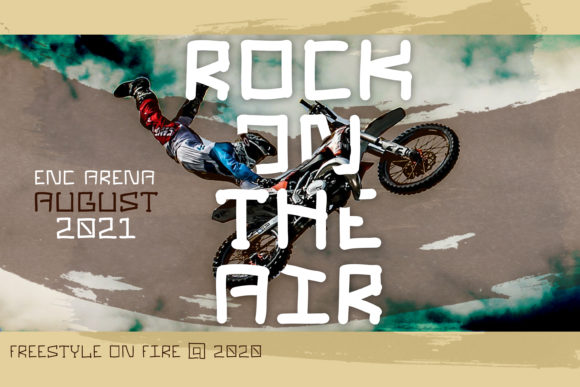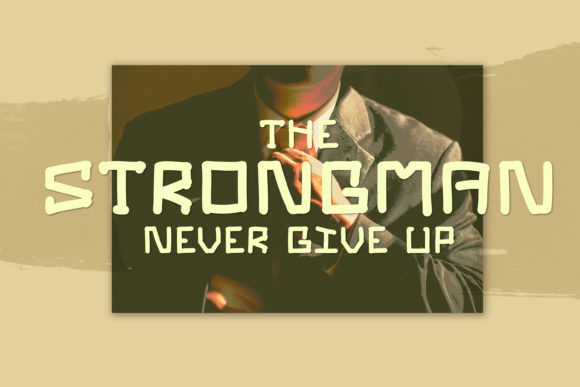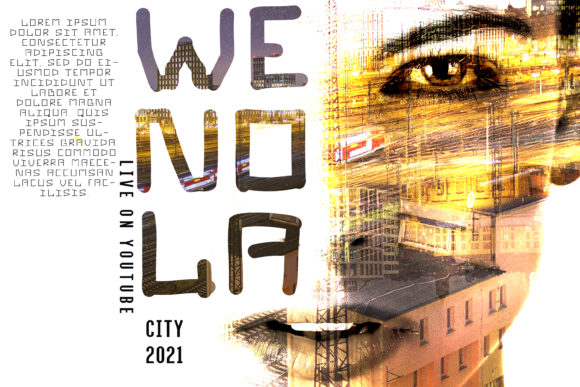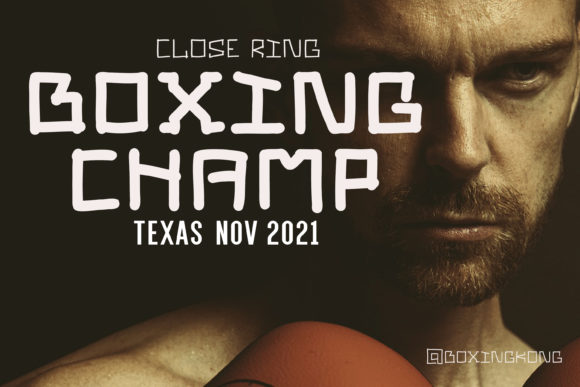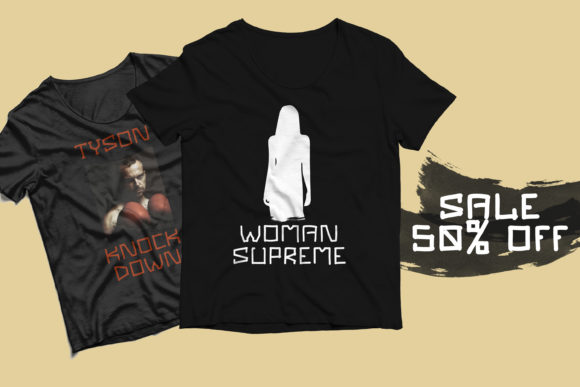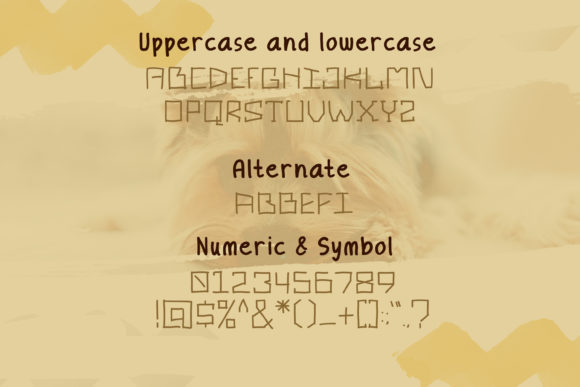
Make Your Designs Stand Out with Face Square Font
Are you tired of using the same old fonts in your designs? Do you want to add a creative touch to your posters, greeting cards, logos, and business cards? Look no further than Face Square Font, a stylish and unique display font that’s sure to make your designs stand out.
What is Face Square Font?
Face Square Font is a modern, sans-serif font that’s perfect for designers and crafters who want to add a touch of sophistication and elegance to their work. Its unique design features a square-shaped letterform that’s both stylish and eye-catching.
Key Features of Face Square Font
- Unique Design: Face Square Font features a one-of-a-kind design that’s sure to grab attention.
- Stylish and Elegant: The font’s modern, sans-serif design makes it perfect for a wide range of design projects.
- Versatile: Face Square Font can be used for a variety of design projects, including posters, greeting cards, logos, business cards, and more.
- Easy to Read: Despite its unique design, Face Square Font is easy to read, making it perfect for body text and headings.
Uses for Face Square Font
Face Square Font is perfect for a wide range of design projects, including:
- Posters: Add a creative touch to your posters with Face Square Font’s unique design.
- Greeting Cards: Make your greeting cards stand out with Face Square Font’s stylish and elegant design.
- Logos: Use Face Square Font to create a unique and memorable logo for your business.
- Business Cards: Add a touch of sophistication to your business cards with Face Square Font.
- Quotes: Make your quotes stand out with Face Square Font’s stylish and eye-catching design.
- Thank You Cards: Add a creative touch to your thank you cards with Face Square Font.
Why Choose Face Square Font?
There are many reasons why Face Square Font is the perfect choice for your design projects. Here are just a few:
- Unique Design: Face Square Font features a one-of-a-kind design that’s sure to grab attention.
- High-Quality: Face Square Font is a high-quality font that’s designed to look great in any design project.
Tips for Using Face Square Font
Here are a few tips for using Face Square Font in your design projects:
- Use it as a Headline Font: Face Square Font is perfect for use as a headline font, where its unique design can really shine.
- Pair it with Other Fonts: Face Square Font pairs well with a variety of other fonts, making it perfect for use in combination with other typefaces.
- Experiment with Different Sizes: Face Square Font looks great in a variety of sizes, from small to large.
- Use it to Add Emphasis: Face Square Font is perfect for adding emphasis to certain words or phrases in your design.
Face Square Font is a stylish and unique display font that’s perfect for designers and crafters who want to add a creative touch to their work. With its modern, sans-serif design and square-shaped letterform, Face Square Font is sure to make your designs stand out. Whether you’re creating posters, greeting cards, logos, or business cards, Face Square Font is the perfect choice.